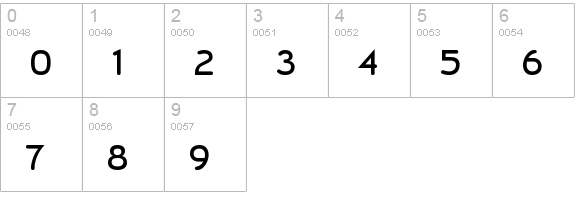
Wevli Medium Font Details
Wevli Medium is a balanced, medium-weight variant in the Wevli typeface family \xE2\x80\x94 well suited to sub-headlines, navigation, and balanced editorial work.
Introducing Wevli Medium font, a versatile and modern typeface that exudes elegance and sophistication. This font strikes the perfect balance between classic and contemporary styles, making it ideal for a wide range of design projects. With its clean lines and balanced proportions, Wevli Medium font is perfect for branding, editorial design, packaging, and more. Its medium weight adds just the right amount of presence without overpowering the text, making it a versatile choice for both headers and body copy. Best of all, Wevli Medium font is completely free to download at FontsMarket.com. Whether you're a seasoned designer looking to refresh your font collection or a beginner searching for the perfect typeface for your project, Wevli Medium font is sure to impress with its timeless appeal and effortless readability. Download it today and elevate your designs with this stunning font!